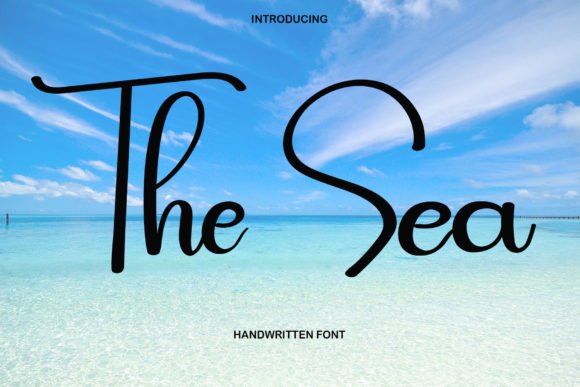
Immerse yourself in the world of elegance with The Sea Font, a mesmerizing creation by asmunin78. This script font exudes timeless charm, capturing the essence of classic calligraphy with a modern twist. Inspired by the beauty of the sea, this font embodies the fluidity and grace of the ocean's waves.
As you explore The Sea Font, you'll discover a world of possibilities. Its delicate strokes and sweeping curves evoke a sense of sophistication and luxury, making it the perfect choice for creating captivating designs that leave a lasting impression. Whether you're crafting wedding invitations, branding materials, or social media posts, this font will add a touch of elegance and class to any project.
Dive into the depths of creativity with The Sea Font. Its versatility knows no bounds, allowing you to craft various kinds of products, from eye-catching logos and business cards to stunning posters and flyers. Its ability to adapt to different aspects and needs makes it an indispensable tool for designers seeking to create unique and memorable designs.
With The Sea Font, you'll unlock a world of possibilities for your creative endeavors. Its beauty and versatility will elevate your designs to new heights, leaving your audience mesmerized. Don't miss the chance to experience the magic of The Sea Font. Embrace the essence of elegance and let your creativity flow freely. Dive in today and discover the boundless potential that awaits you.